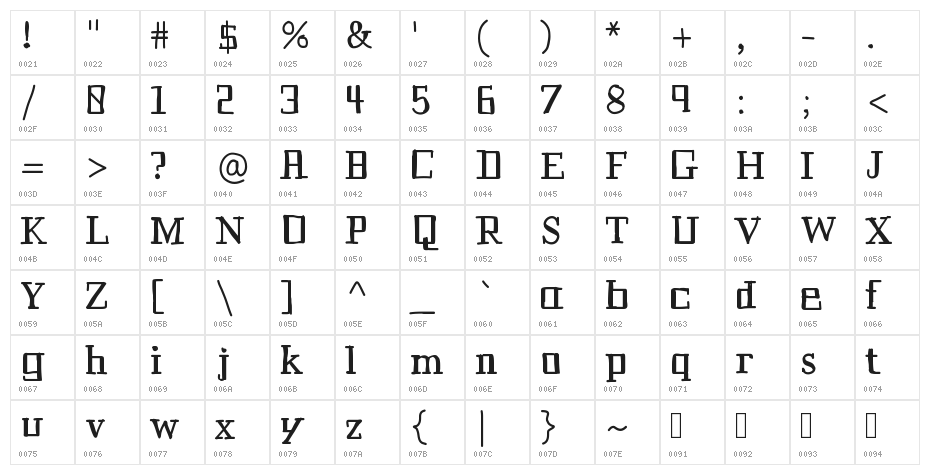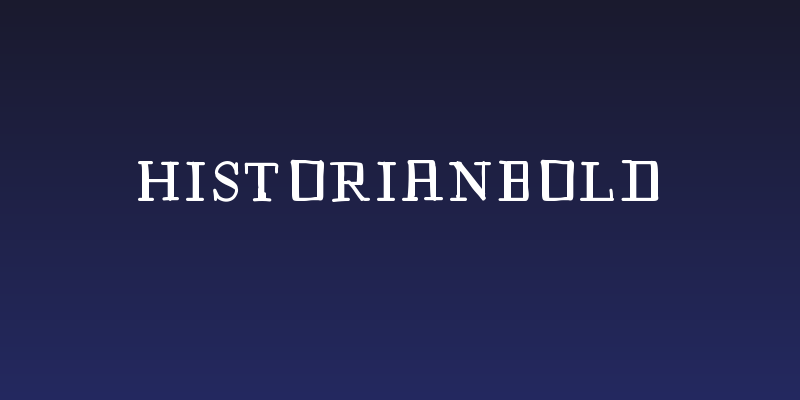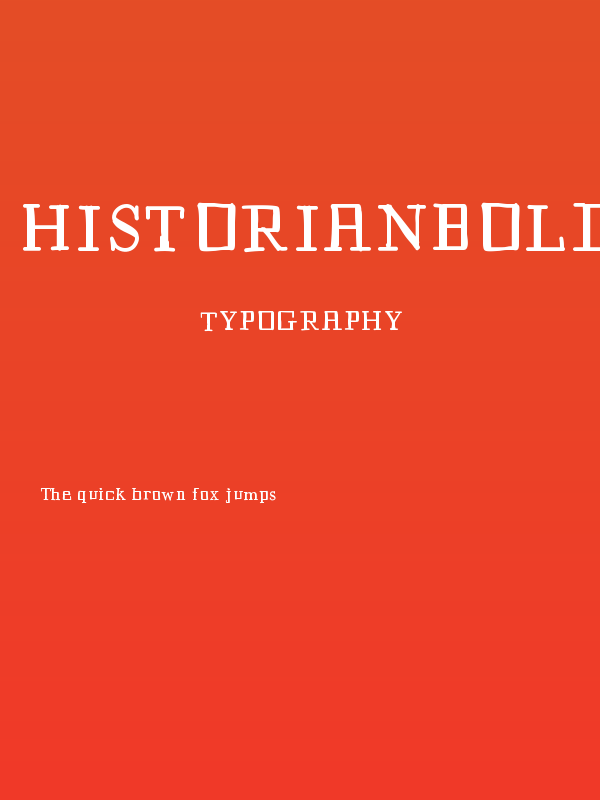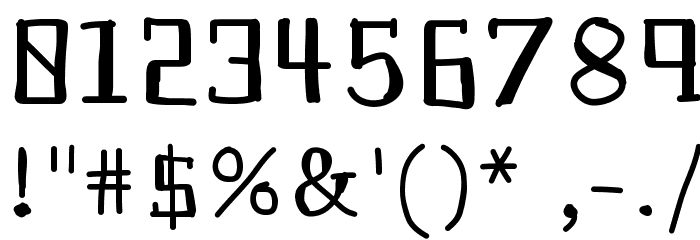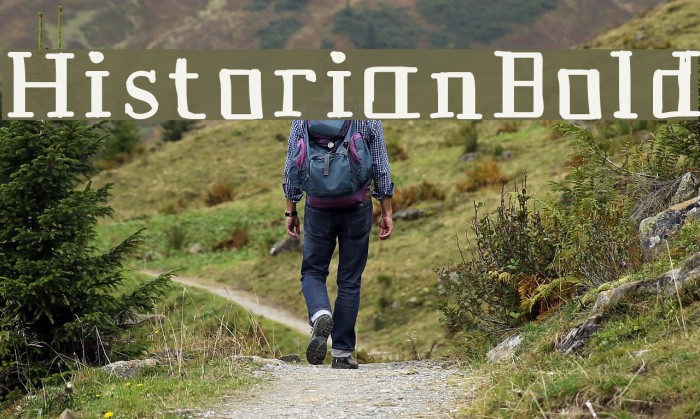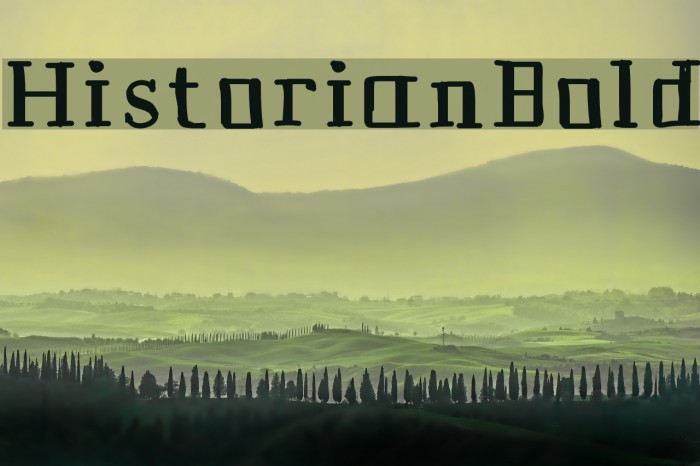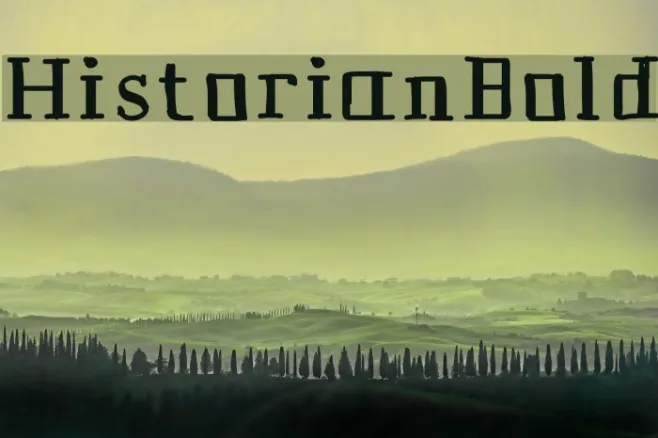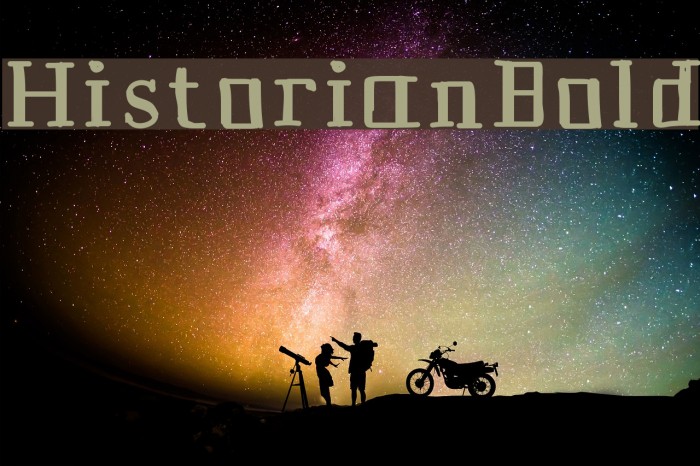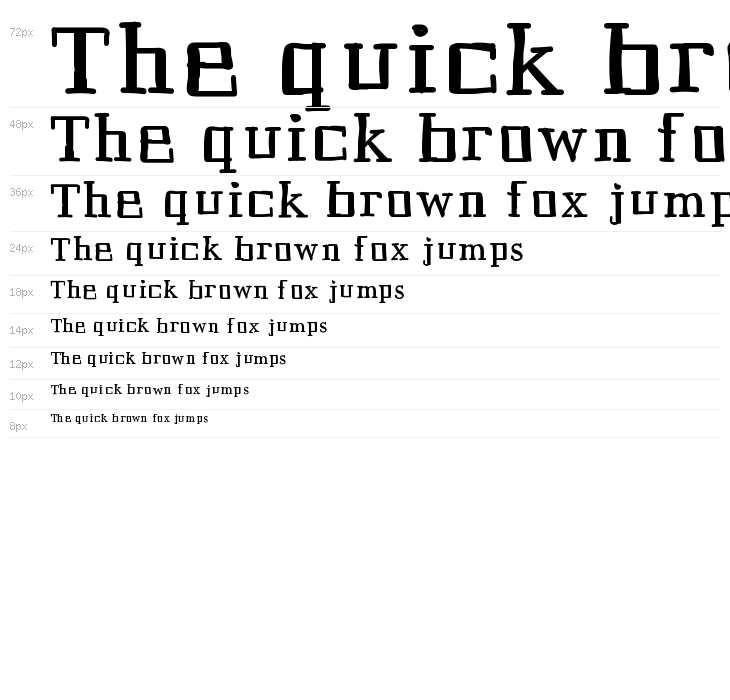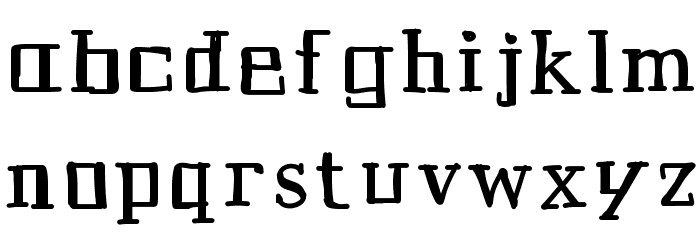
HistorianBold Font
HistorianBold Description
This font features a bold and structured design with a vintage flair. The uppercase letters are characterized by strong, angular lines and a slightly condensed form, giving them a commanding presence. The lowercase letters maintain a consistent style, with a slight variation in stroke width that adds a touch of elegance. The numerals are robust and clear, ensuring readability. Special characters are designed to complement the overall aesthetic, with a mix of sharp edges and subtle curves. The font's unique style makes it suitable for projects that require a historical or classic touch, while its boldness ensures it stands out in any design.
| Proposed Projects | Ideal for historical-themed posters, vintage branding, book covers, and signage. |